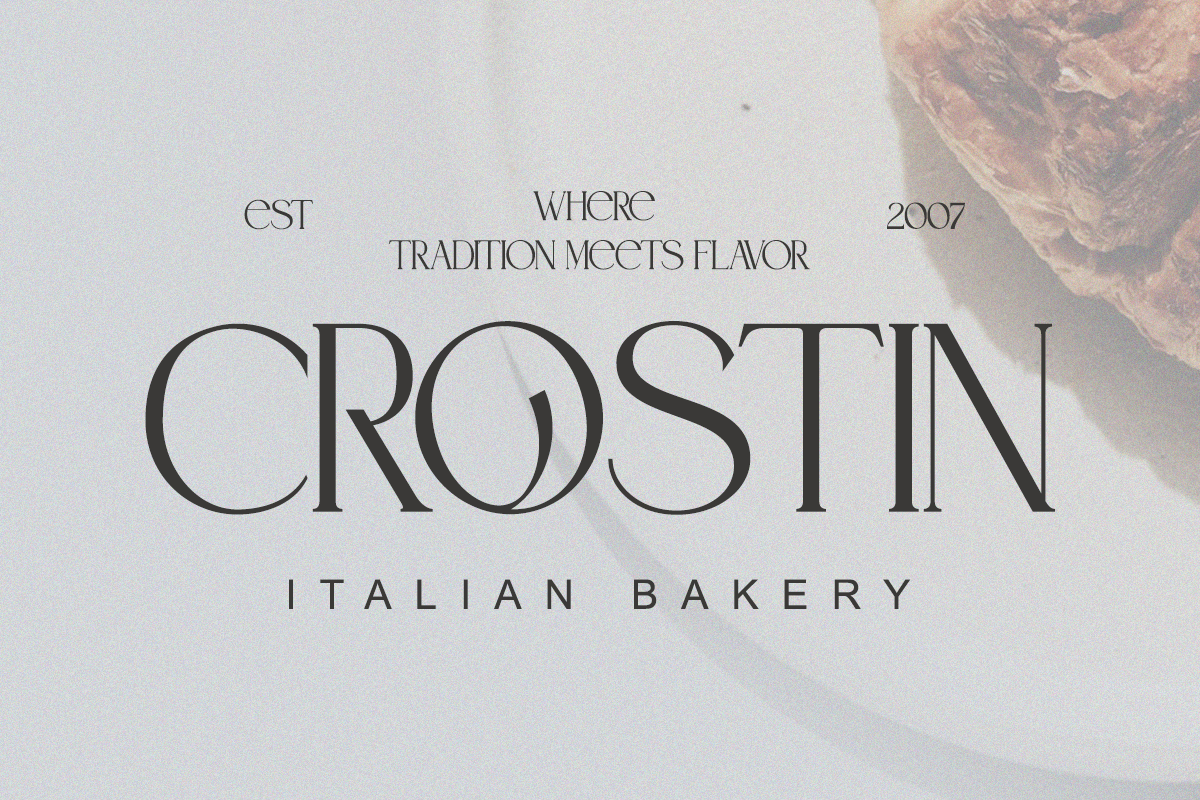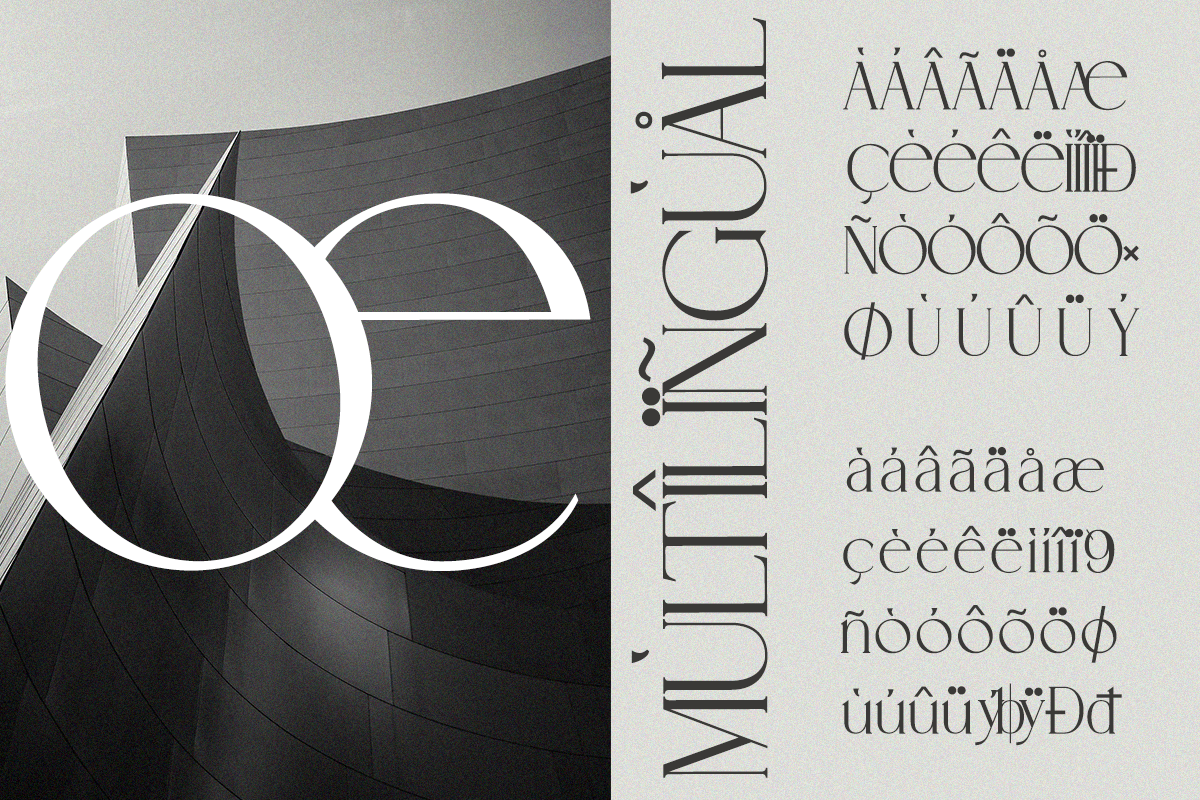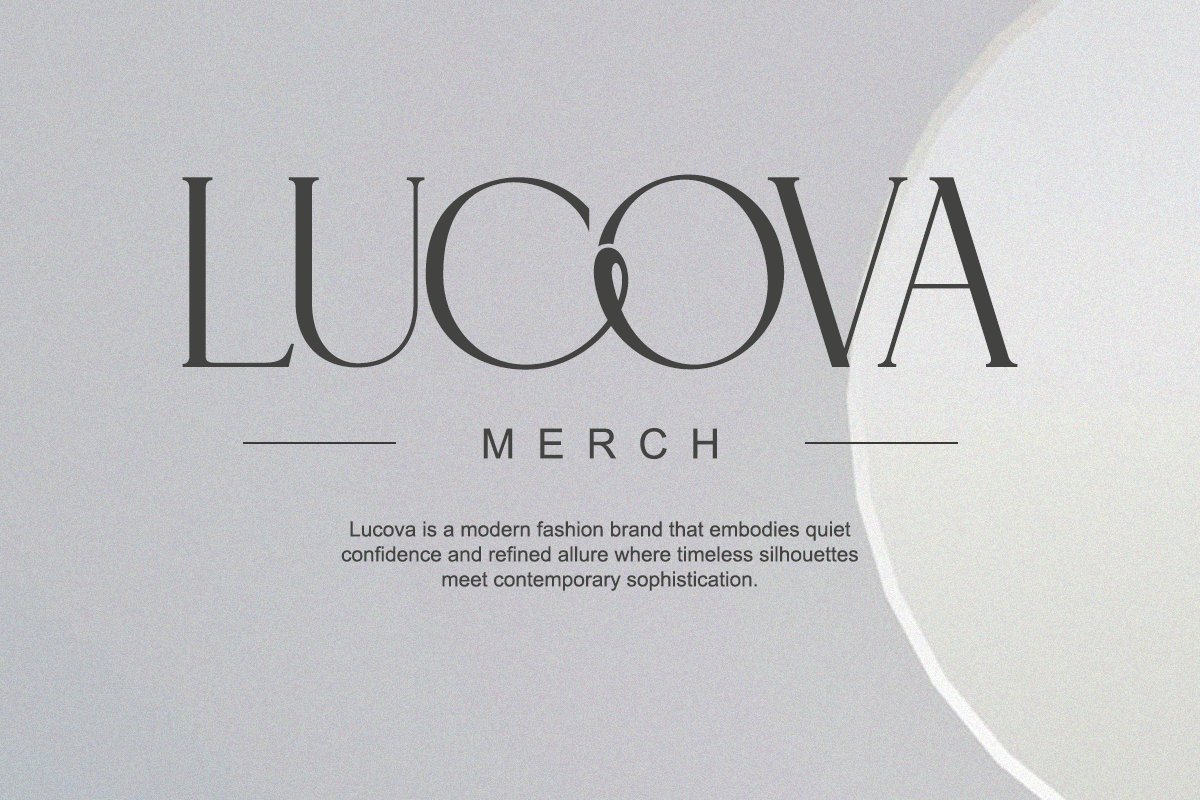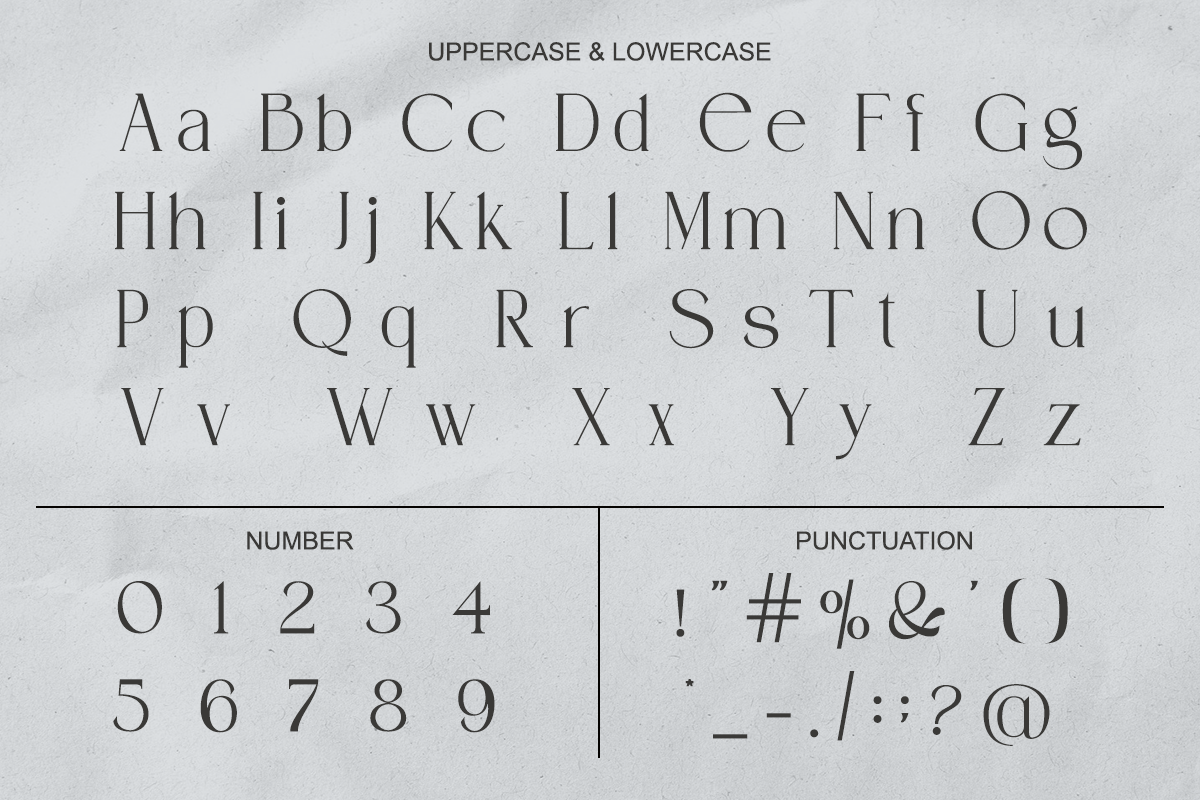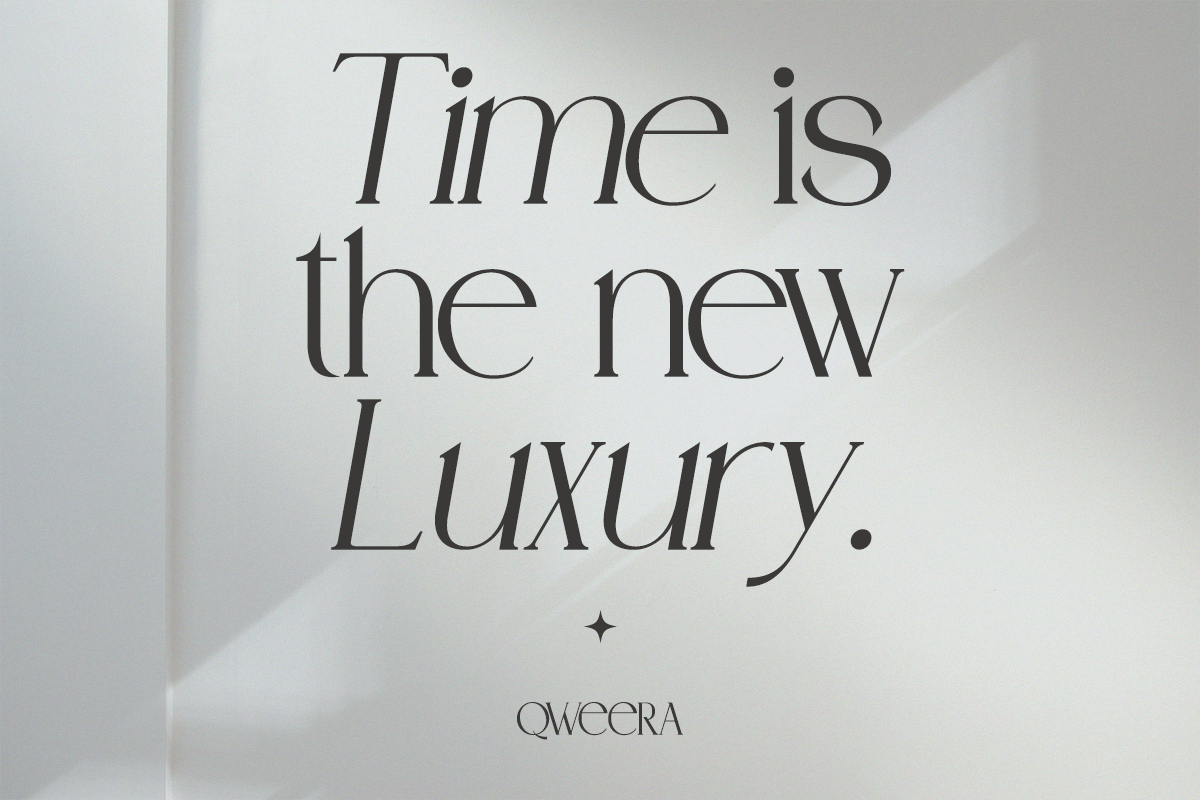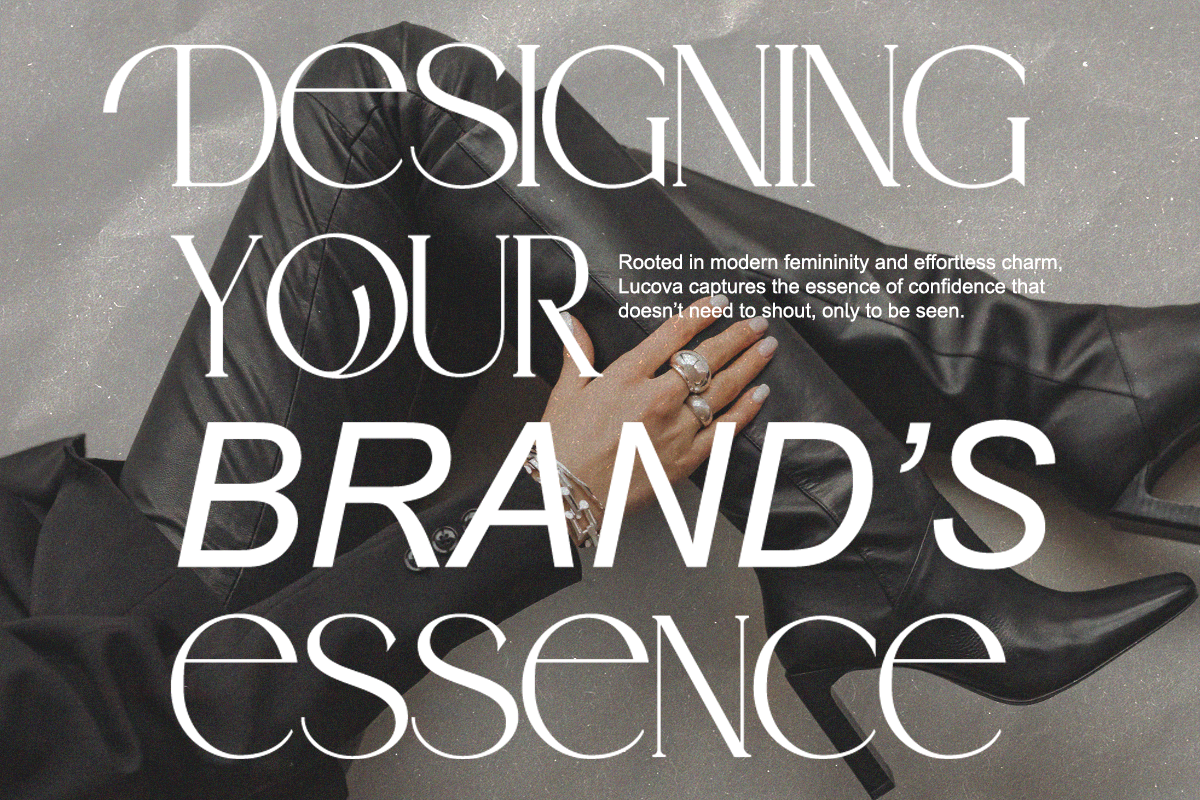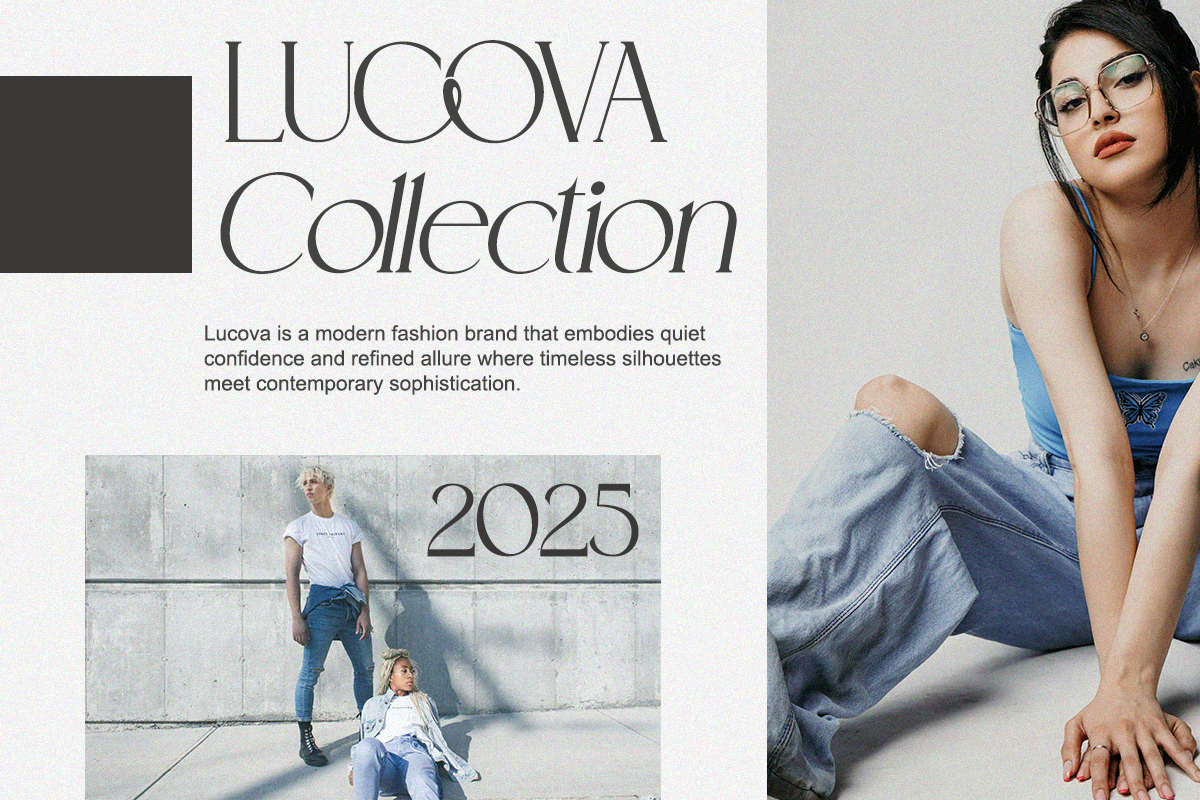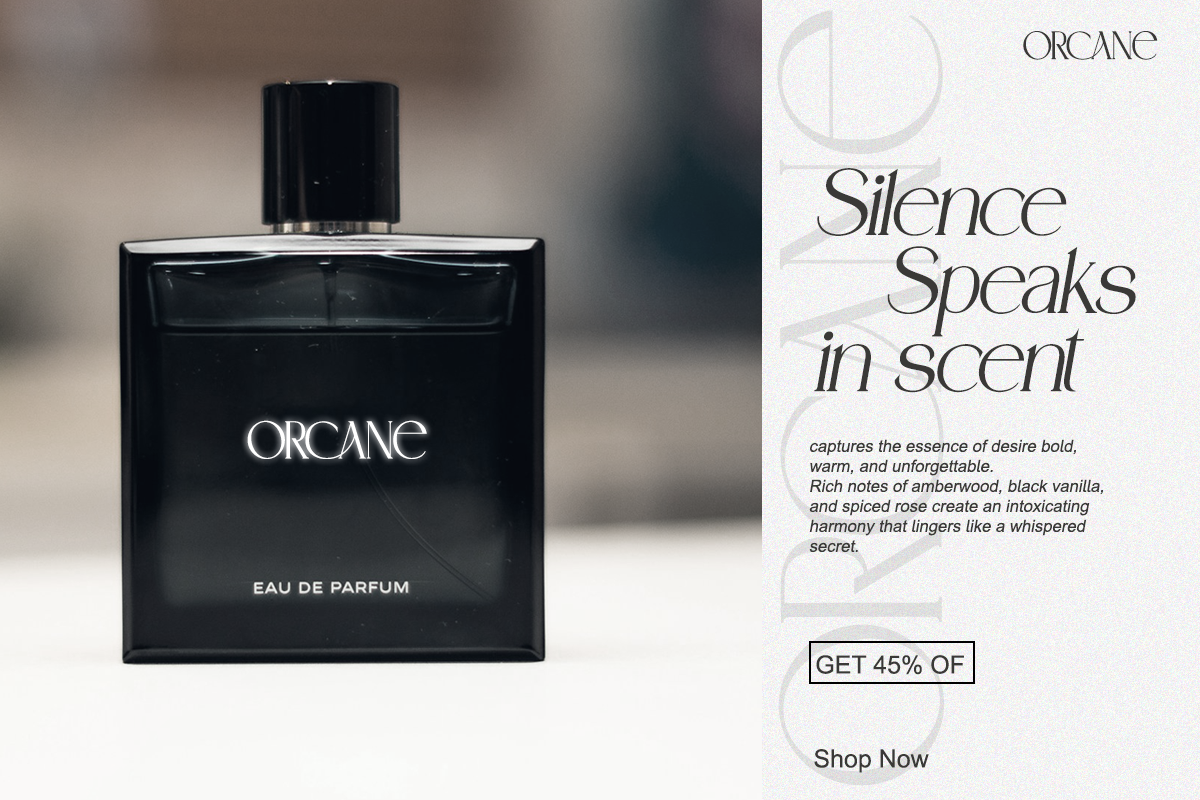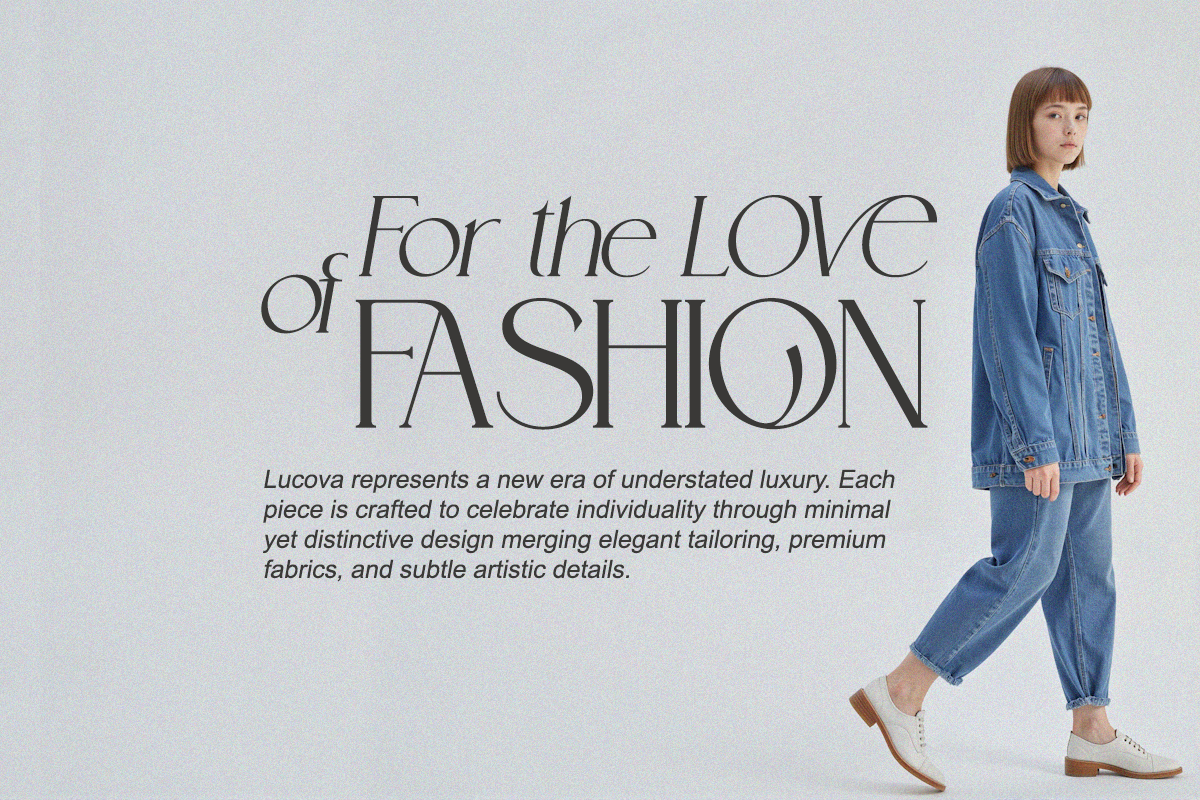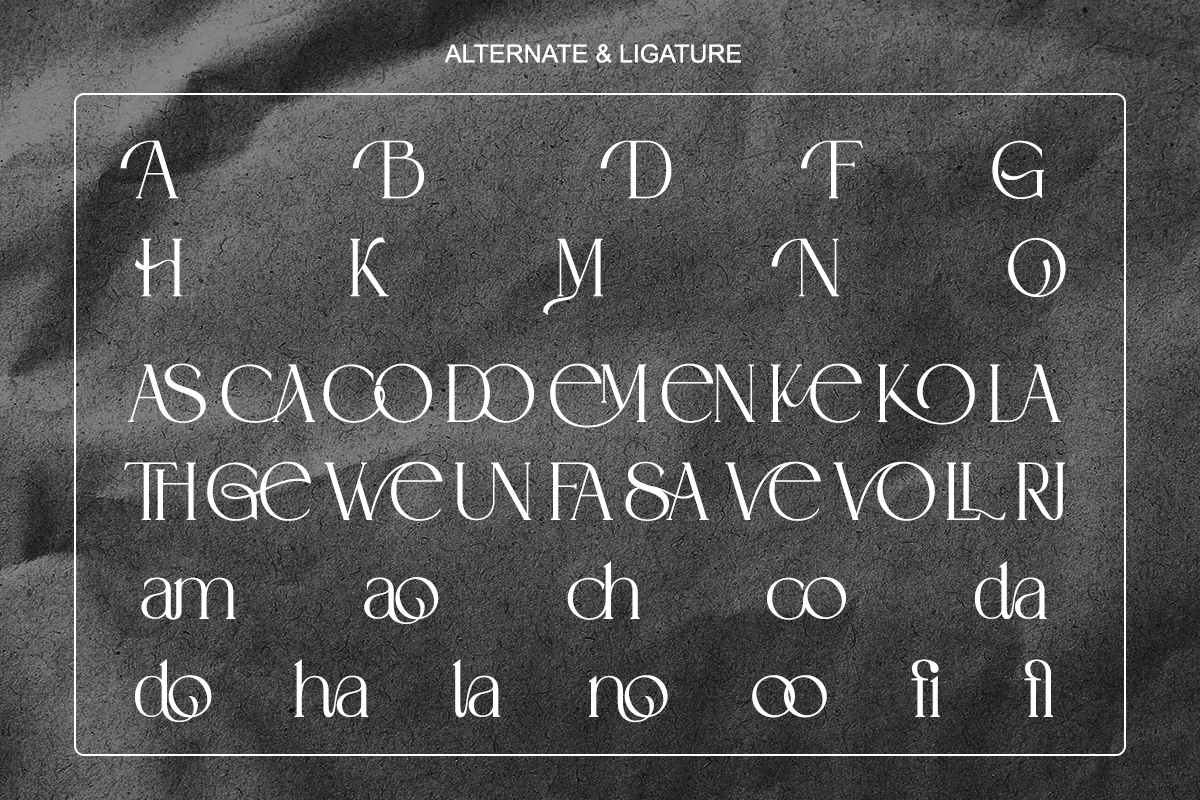
Nematho - Modern Elegant Branding
Nematho is a luxury serif font that combines elegance with modern professionalism. Its strong structure and smooth ligatures make it a perfect choice for brand logos, packaging, magazine covers, and editorial headlines. Designed for clarity and style, Nematho elevates your projects with a timeless sense of class.
- Regular & Italic
Perfect For: Brand identity, fashion editorials, packaging, digital campaigns, and logo design.